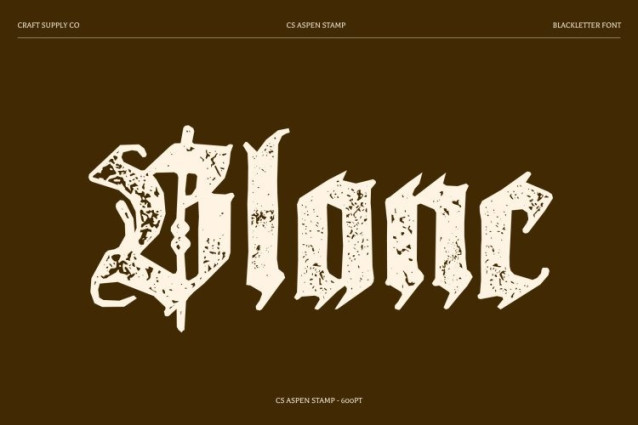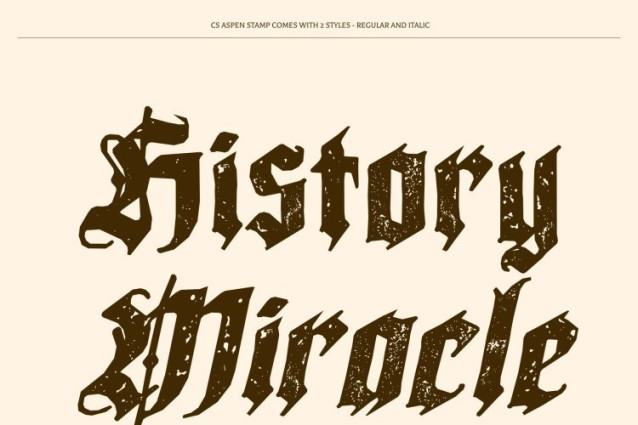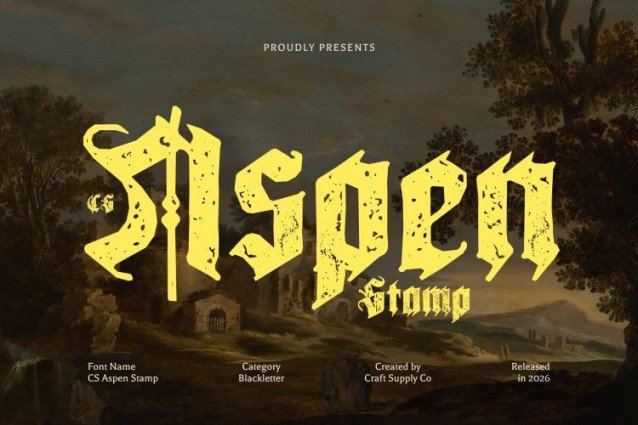
CS Aspen Stamp Font
CS Aspen Stamp Font – This intensifies its traditional Blackletter elegance with a subtle stamped texture that enhances its antique character. The thick, sharp strokes and intricate ornamental details remain bold and dramatic, now enriched with gentle ink variations and softly distressed edges. This textured treatment evokes the feel of historic letterpress printing and aged manuscripts.
Ornate Detail with Historic Depth
The richly crafted letterforms gain additional dimension through the stamped effect, amplifying their mysterious and ceremonial presence. The slight imperfections add authenticity, reinforcing the medieval and Old English inspiration while preserving strong visual clarity in display use.
Dramatic and Enigmatic Presence
This font delivers a powerful, character-filled aesthetic perfect for commanding attention. Its Gothic structure combined with textured nuance creates a visually captivating impression ideal for designs that seek grandeur, secrecy, or historical resonance.
Perfect for Heritage and Theatrical Design
Well-suited for invitations, theater posters, book covers, branding, certificates, and thematic event materials, this font brings timeless sophistication and dramatic flair. Its fusion of Blackletter tradition and stamped texture ensures every composition feels historic, bold, and memorably refined.